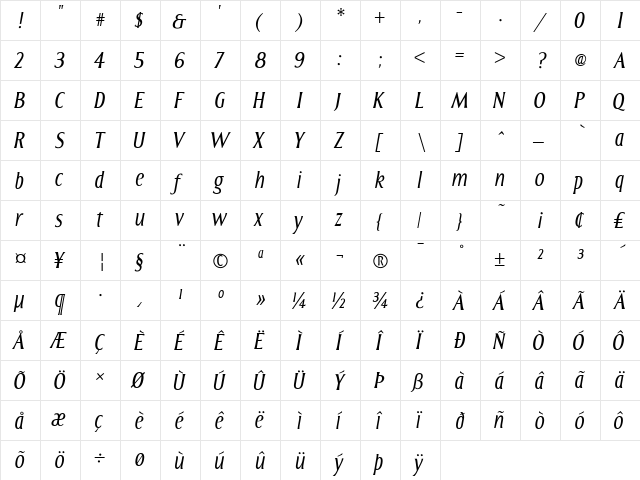
Pilgrim Italic
| Foundry | Marc Tassell / Rebels |
Design Context for Pilgrim Typeface
Pilgrim offers clean, dependable letterforms without strong stylistic allegiance, making it a practical choice for designers who need flexibility. The dynamic lean of this cut emphasises speed and emphasis in any layout.
Pro Tip: Try Pilgrim for annotation and caption copy alongside an upright companion — the contrast in angle creates a dynamic but ordered typographic system.